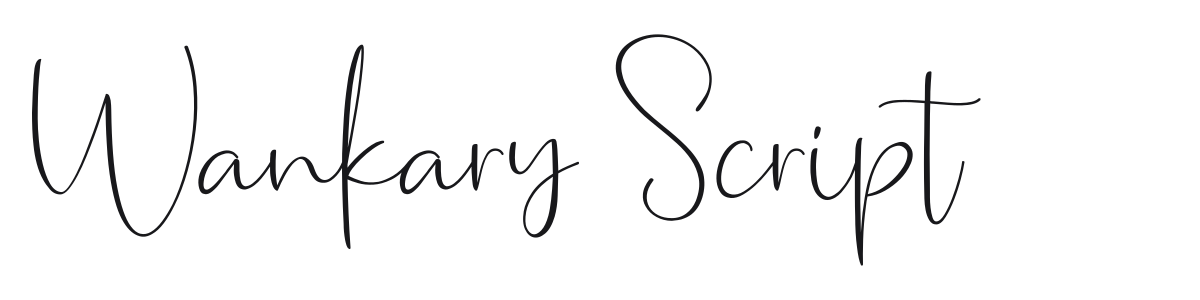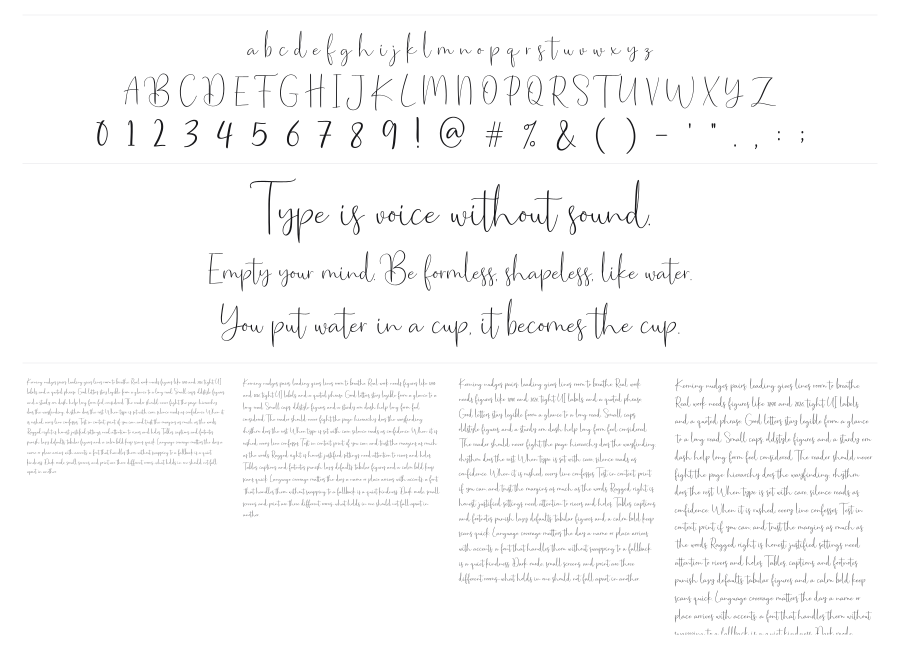
Wankary Script
Wankary Script is a flowing casual script with light, thin strokes and looping ascenders that feel naturally hand-lettered. The relaxed baseline rhythm and generous letter connections give it the warmth of real calligraphy without feeling stiff or formal. It thrives on wedding stationery, product packaging, and branding where softness and personality matter.